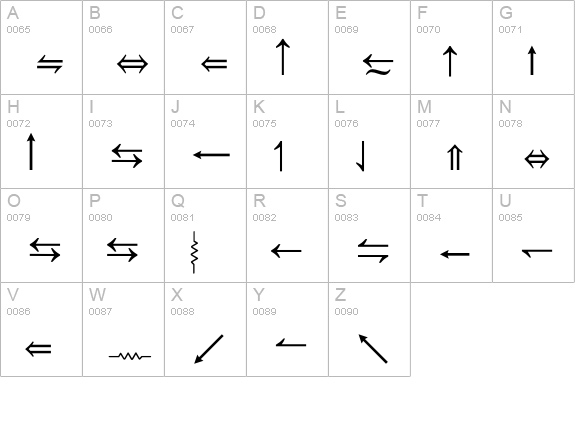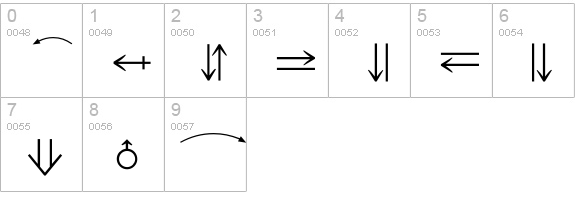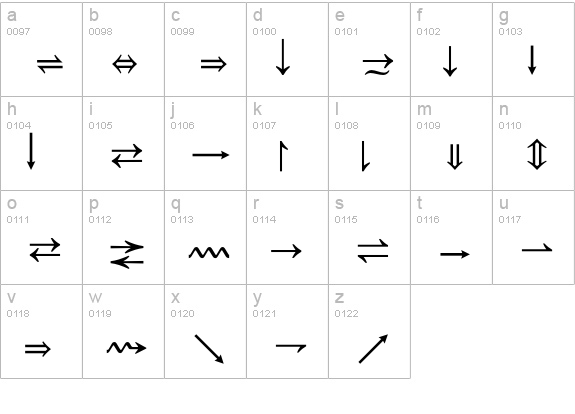
MathTechnicalP02 Font Details
MathTechnicalP02 is a versatile and sophisticated font that is perfect for any mathematical or technical document. With its clean lines and precise geometry, this font exudes professionalism and clarity. Designed with the utmost attention to detail, MathTechnicalP02 is ideal for equations, formulas, and scientific notations. Its balanced proportions and consistent spacing ensure that every symbol and character is rendered with precision and accuracy. What sets MathTechnicalP02 apart is its exceptional legibility, even at smaller sizes. Whether you are working on a complex calculus problem or creating a technical report, this font will ensure that your content is easily readable and comprehensible. But what makes MathTechnicalP02 even more remarkable is that it is available for free! Yes, you read that right. This high-quality font can be freely downloaded at FontsMarket.com, a reputable source for a wide range of fonts. By making MathTechnicalP02 freely accessible, the designers behind this font have made it easier for students, researchers, and professionals to incorporate mathematical and technical elements into their work without any financial burden. This font truly embodies the spirit of knowledge sharing and accessibility. So, whether you are a math enthusiast, a scientist, or simply someone who appreciates well-designed fonts, MathTechnicalP02 is a must-have in your font collection. Download it for free today at FontsMarket.com and elevate the visual impact of your mathematical and technical documents.